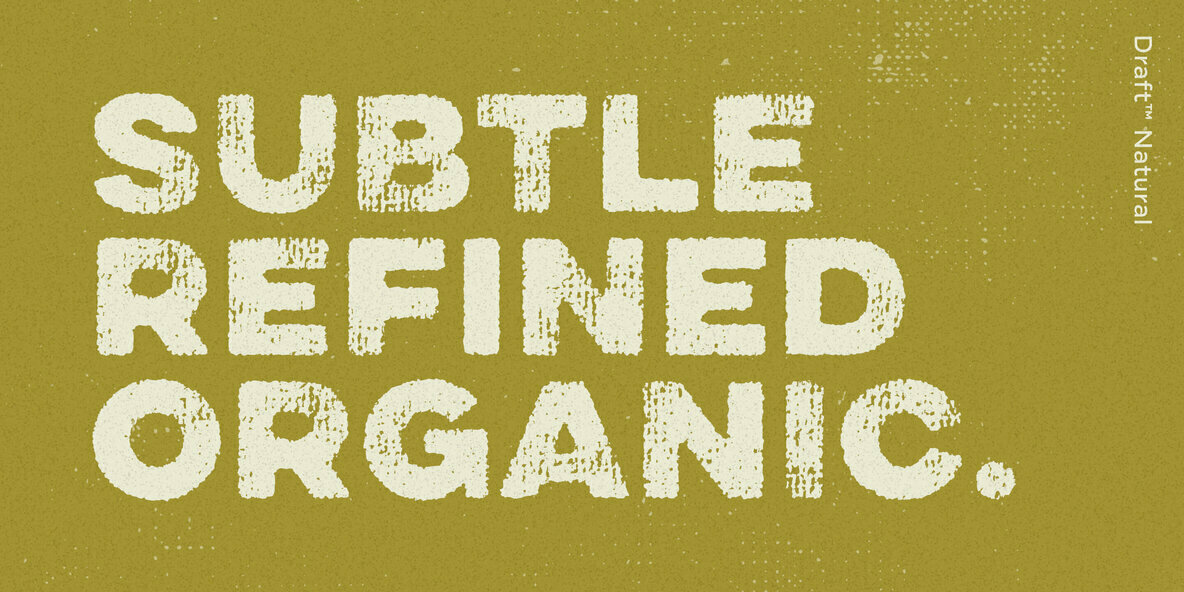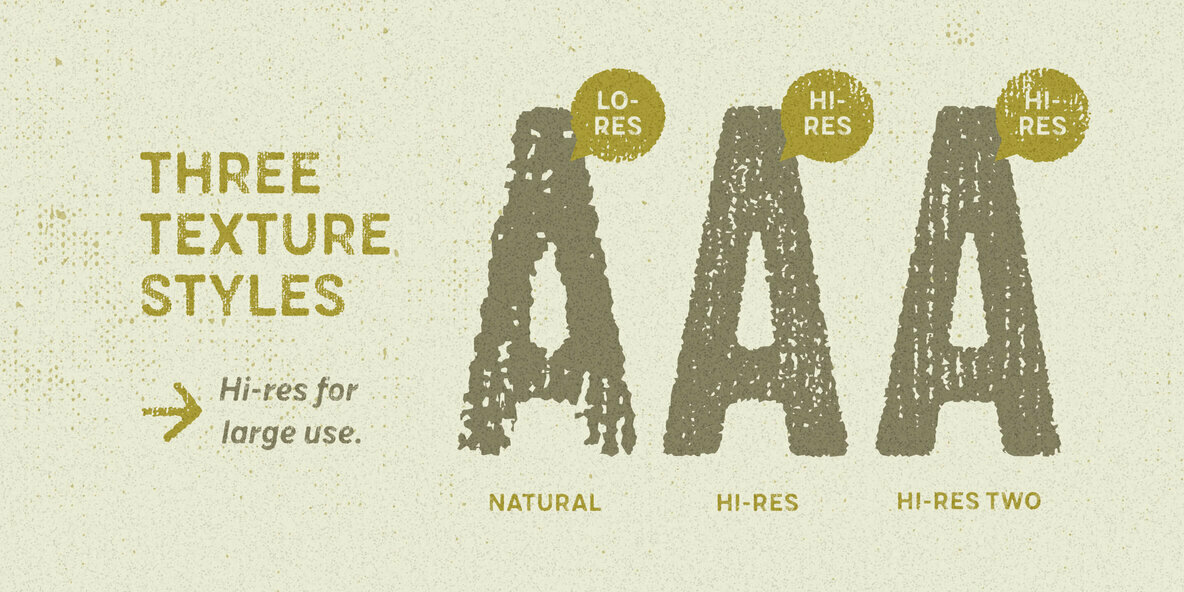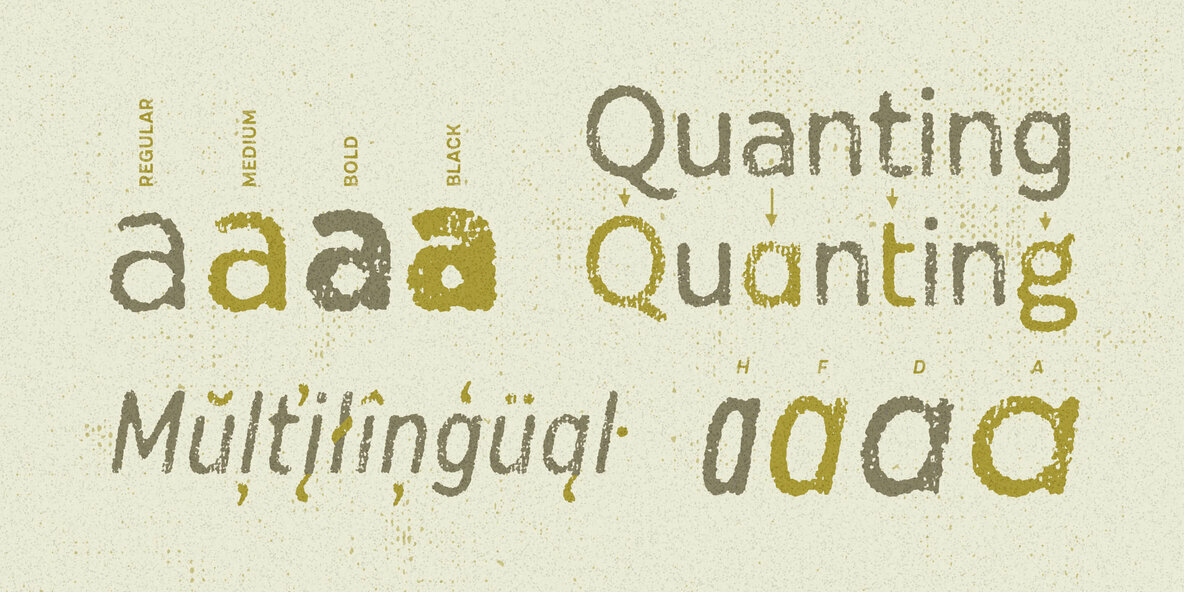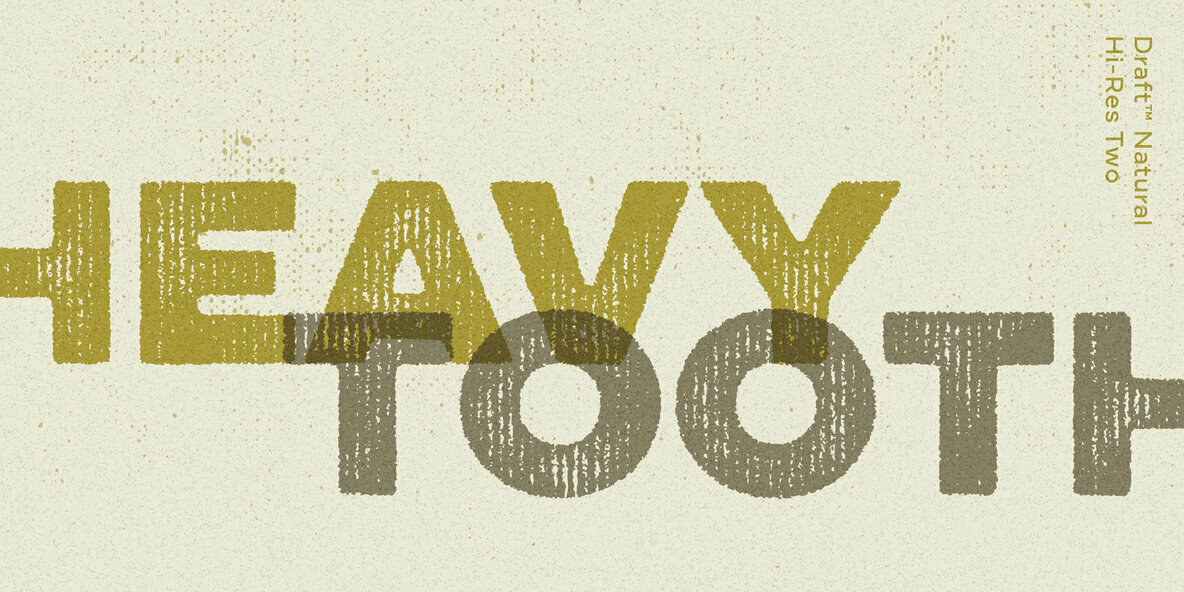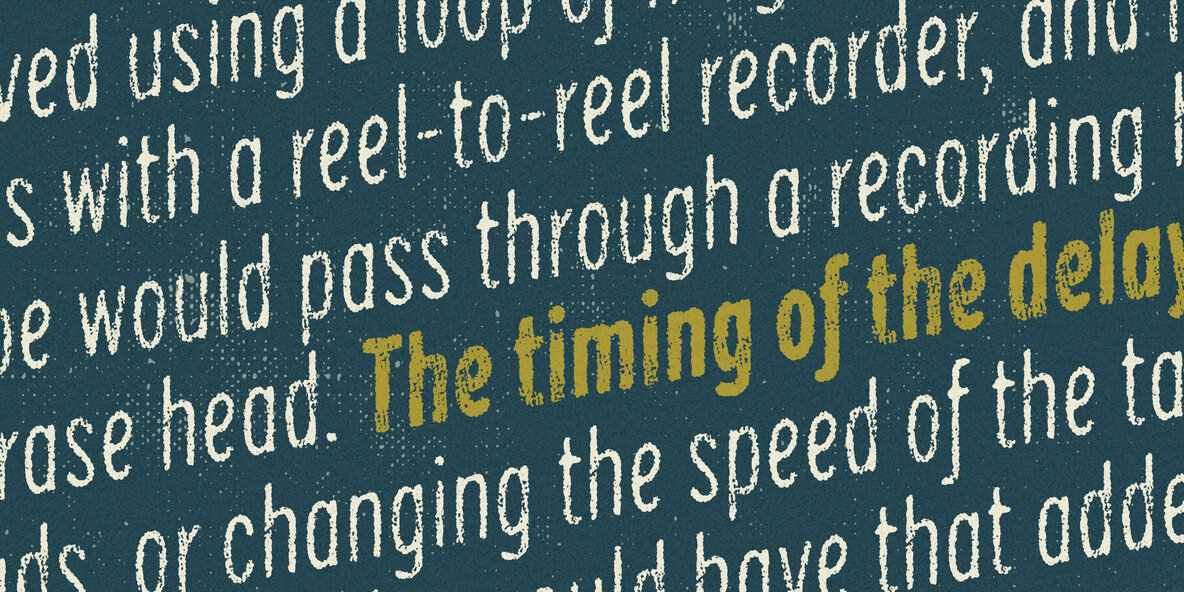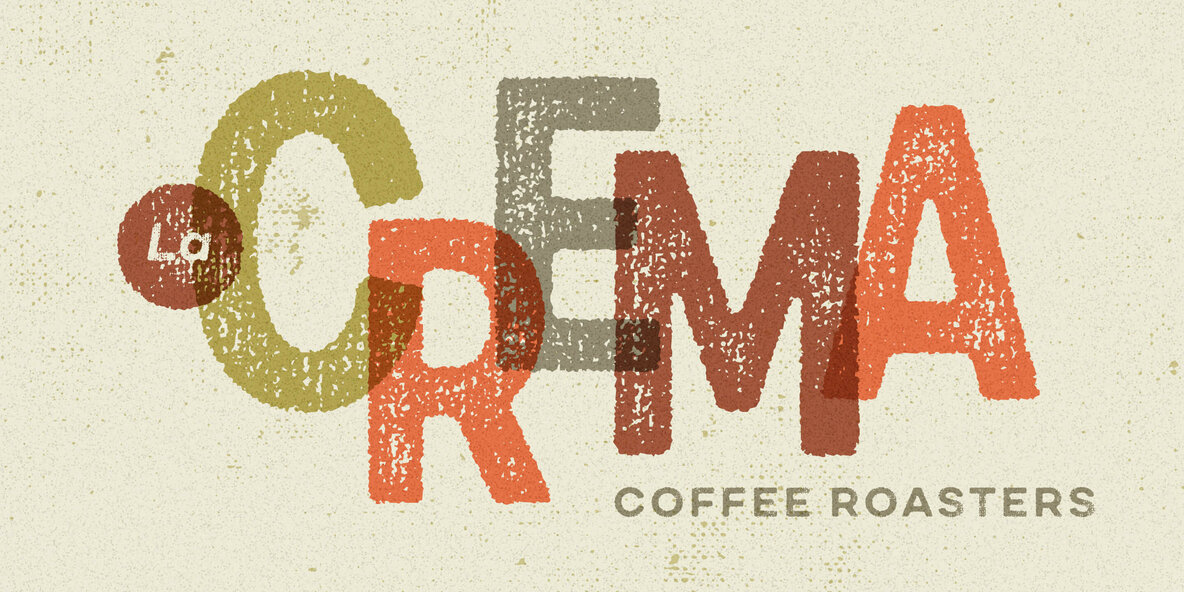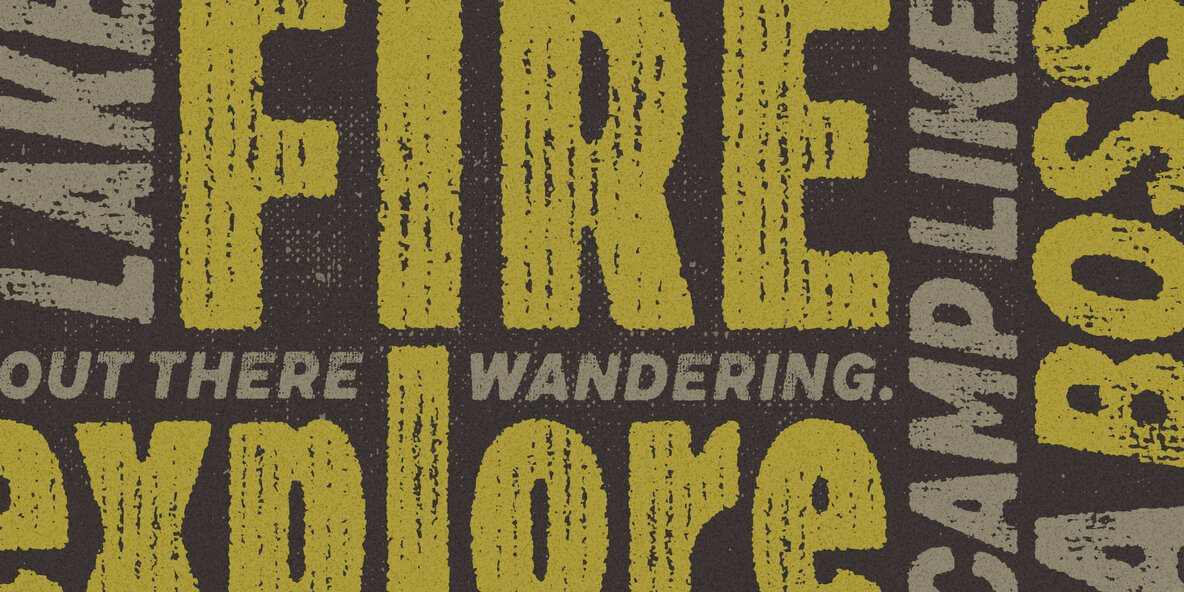
Draft Natural Font
Draft Natural from Yellow Design Studio is a premium hand-crafted type suite with subtle, organic texture. Its realistic grain adds a warm, authentic touch to any project.
The base fonts include upper and lowercase in four widths and four weights plus italics. Additional hi-res sub-families are designed specifically for use at large sizes. Draft Natural includes three texture styles, double-letter ligatures (to prevent duplicate texture in adjacent letters), alternates, professional typographic features and extensive language support.